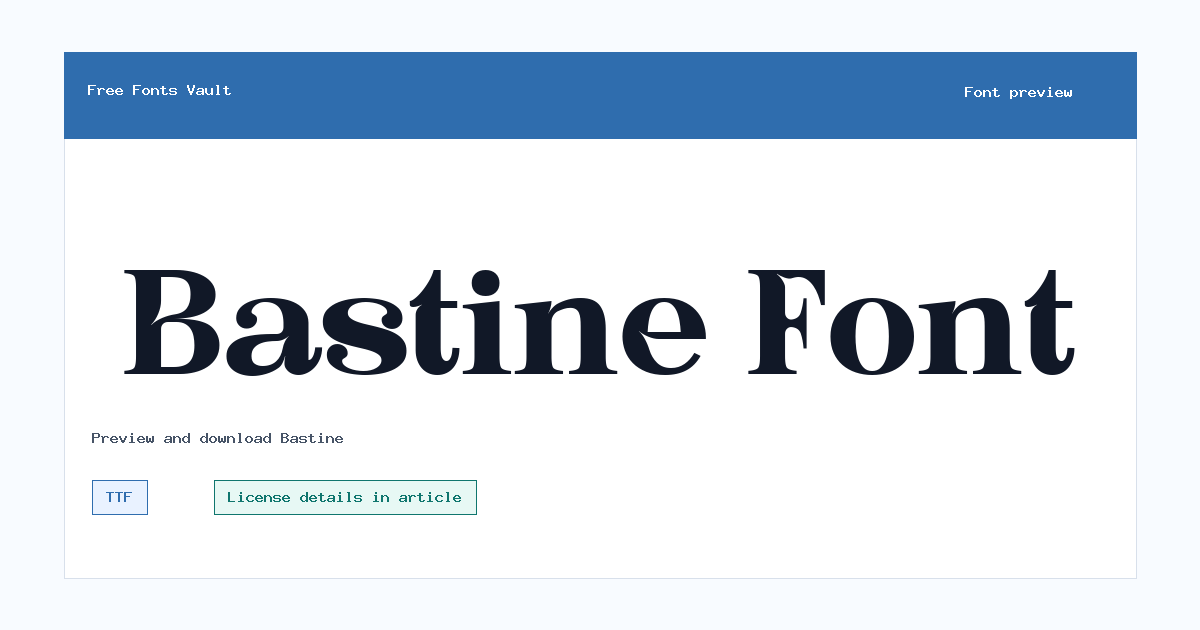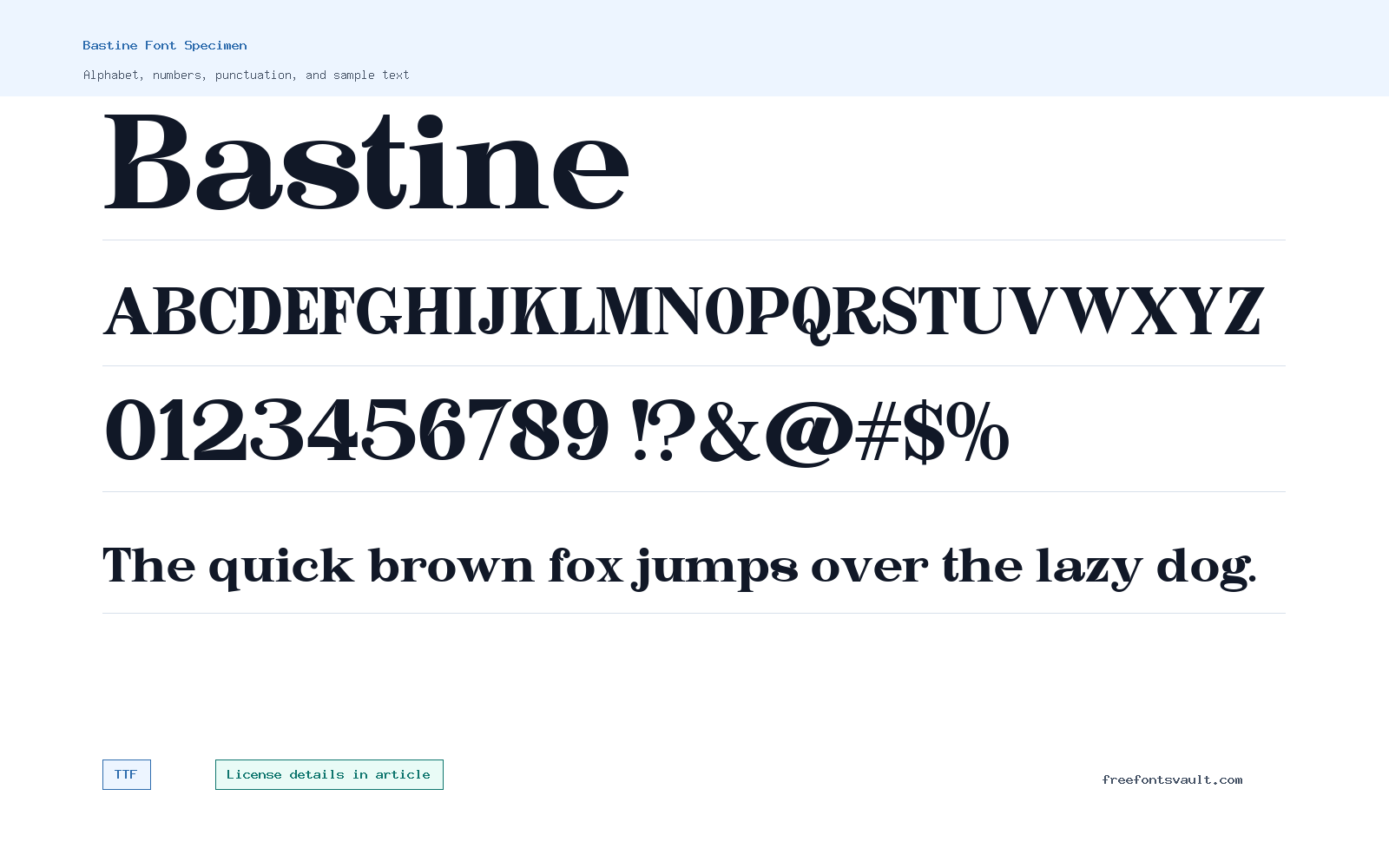
Bastine
- Designer Musthafa Kamal - Afkari Studio
- Foundry Afkari Studio 2021
Bastine font.
Bastine is a regular TTF font family associated with Musthafa Kamal and Afkari Studio. It is a simple choice to test when you need a display-style typeface for short, attention-focused text.
About Bastine Font
Bastine comes as a regular style with normal weight, supplied in TTF format. Because only one variant is listed, it is best treated as a focused display font rather than a large family for complex typography systems. Use the preview tool to check how its letter shapes behave in your own words, especially if your design depends on names, titles, or short phrases.
For best results, test Bastine at the size you plan to use. Single-style fonts can work well for logos, headings, labels, social graphics, posters, and thumbnails, but they may feel limited in long paragraphs because there are no extra weights or italic styles to build hierarchy. Pair it with a clean sans serif or readable serif for body copy, and let Bastine handle the main visual moment.
Bastine should be evaluated as a character font rather than a neutral workhorse. Try it with the exact name, heading, or phrase you want to use, then check whether the spacing and rhythm still feel balanced. If the design needs several levels of hierarchy, keep Bastine for the main title and build the rest of the page with a more flexible companion family.
- Regular style with normal 400 weight
- Short headlines, title graphics, and logo-style text
- Posters, social media artwork, labels, and display previews
- Display-first projects where one distinctive regular style is enough for the main title
Bastine is credited to Musthafa Kamal – Afkari Studio, with Afkari Studio listed as the foundry name for 2021.
Does Bastine include multiple styles?
Only one regular style is listed, with normal 400 weight.
Who designed Bastine?
The font is credited to Musthafa Kamal – Afkari Studio.
What should I use Bastine for?
Use it for short display text such as headings, logos, posters, labels, thumbnails, and social graphics rather than long body text.
Should I use Bastine for a full website or article?
Use it mainly for the main display line. For long articles, menus, and smaller labels, pair it with a more readable text font.